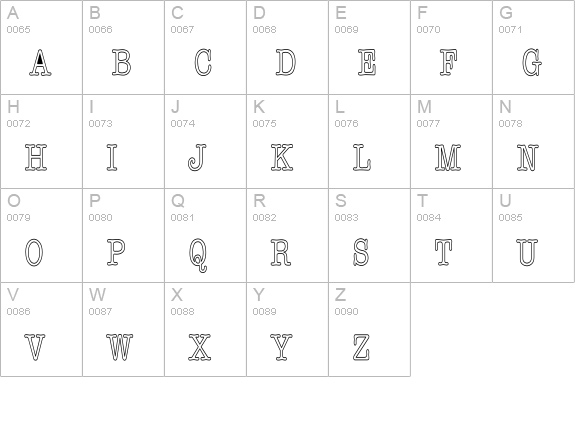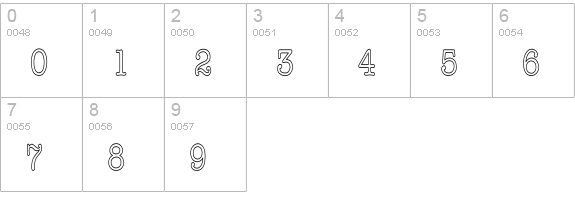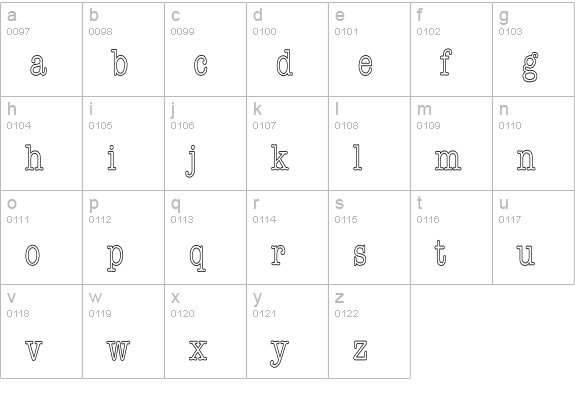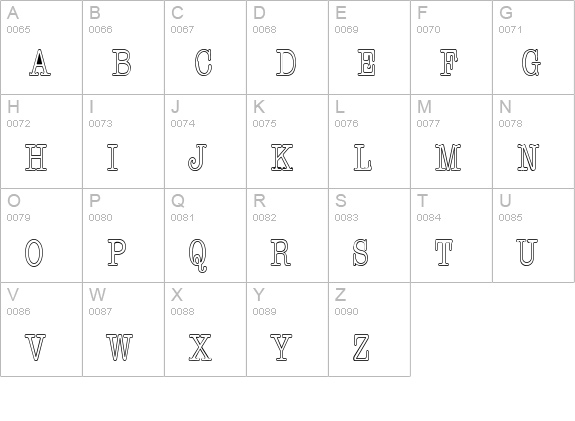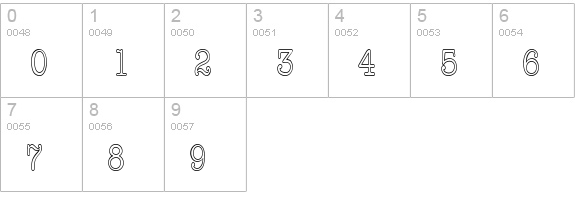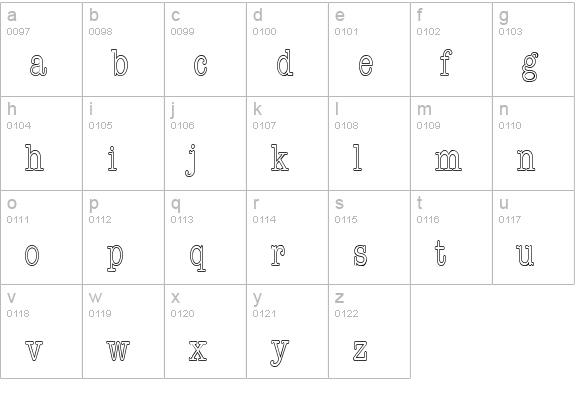
AshtonTellermatic Font Details
AshtonTellermatic is a modern and stylish font that exudes sophistication and elegance. Its sleek lines and sharp angles make it perfect for a wide range of design projects, from branding to editorial design. The unique combination of classic and contemporary elements gives AshtonTellermatic a distinct and memorable look that will make your designs stand out. Best of all, AshtonTellermatic is available for free download at FontsMarket.com. This means you can easily access this high-quality font without any cost, making it a valuable resource for designers and creatives looking to elevate their work. With AshtonTellermatic, you can effortlessly add a touch of class and refinement to your projects, creating stunning visuals that leave a lasting impression.